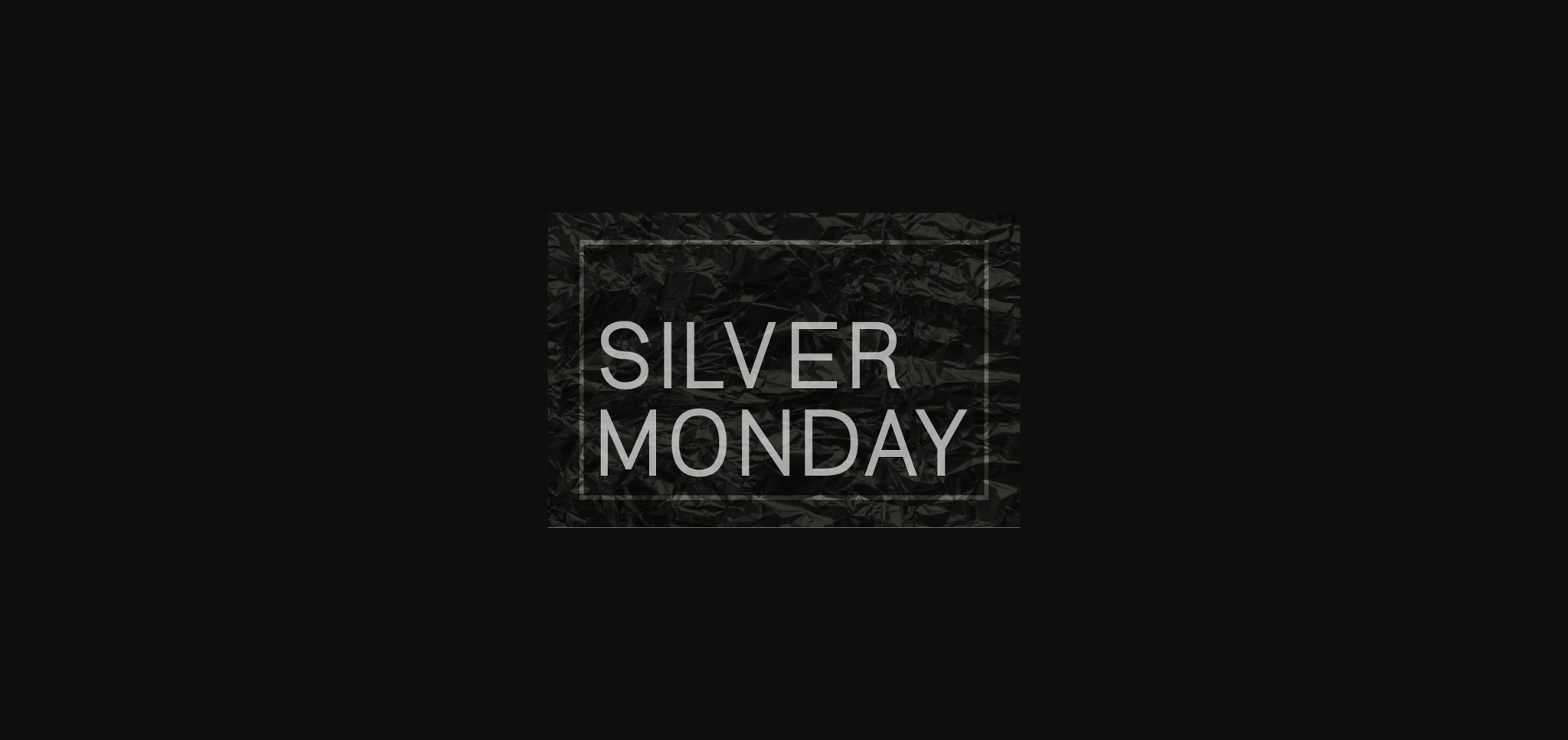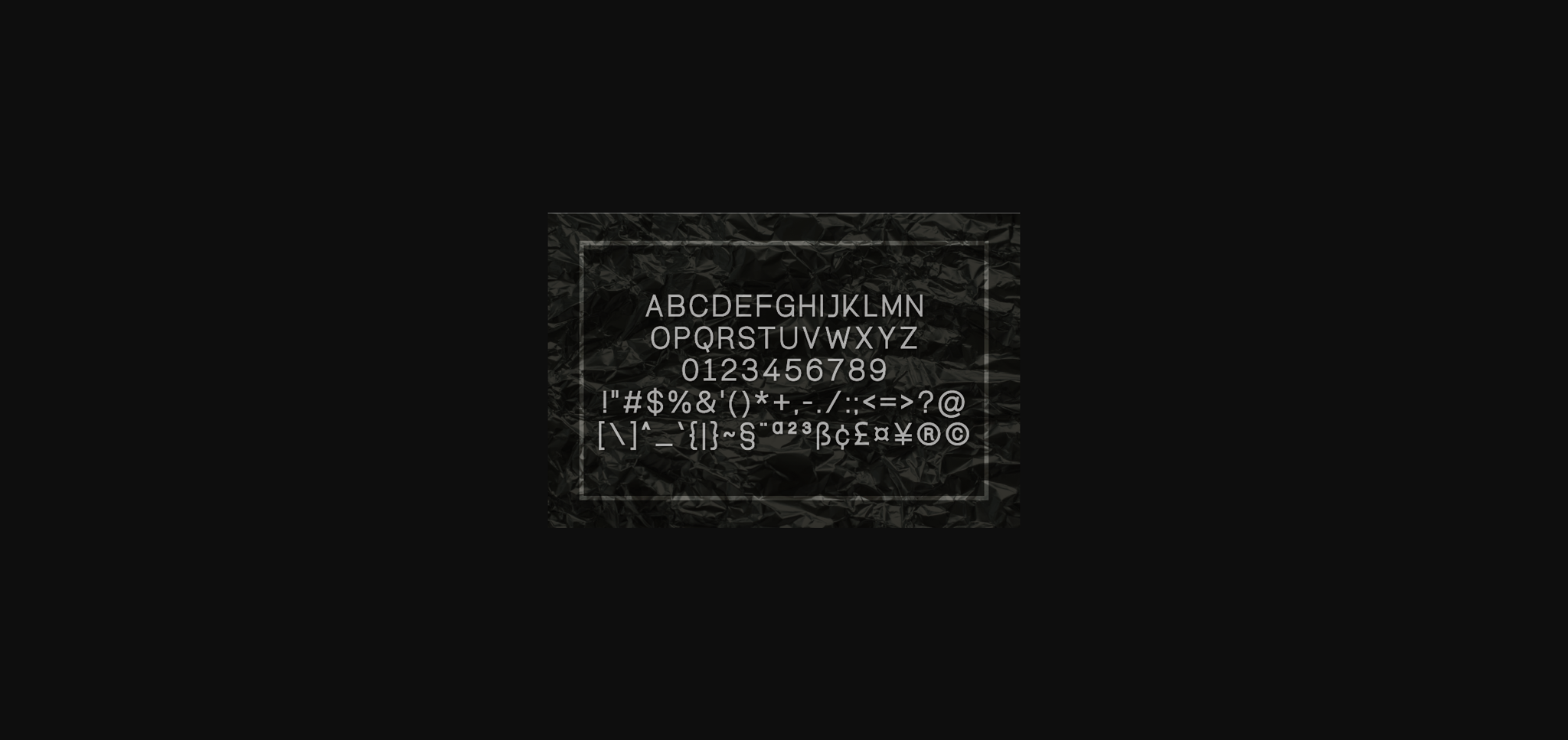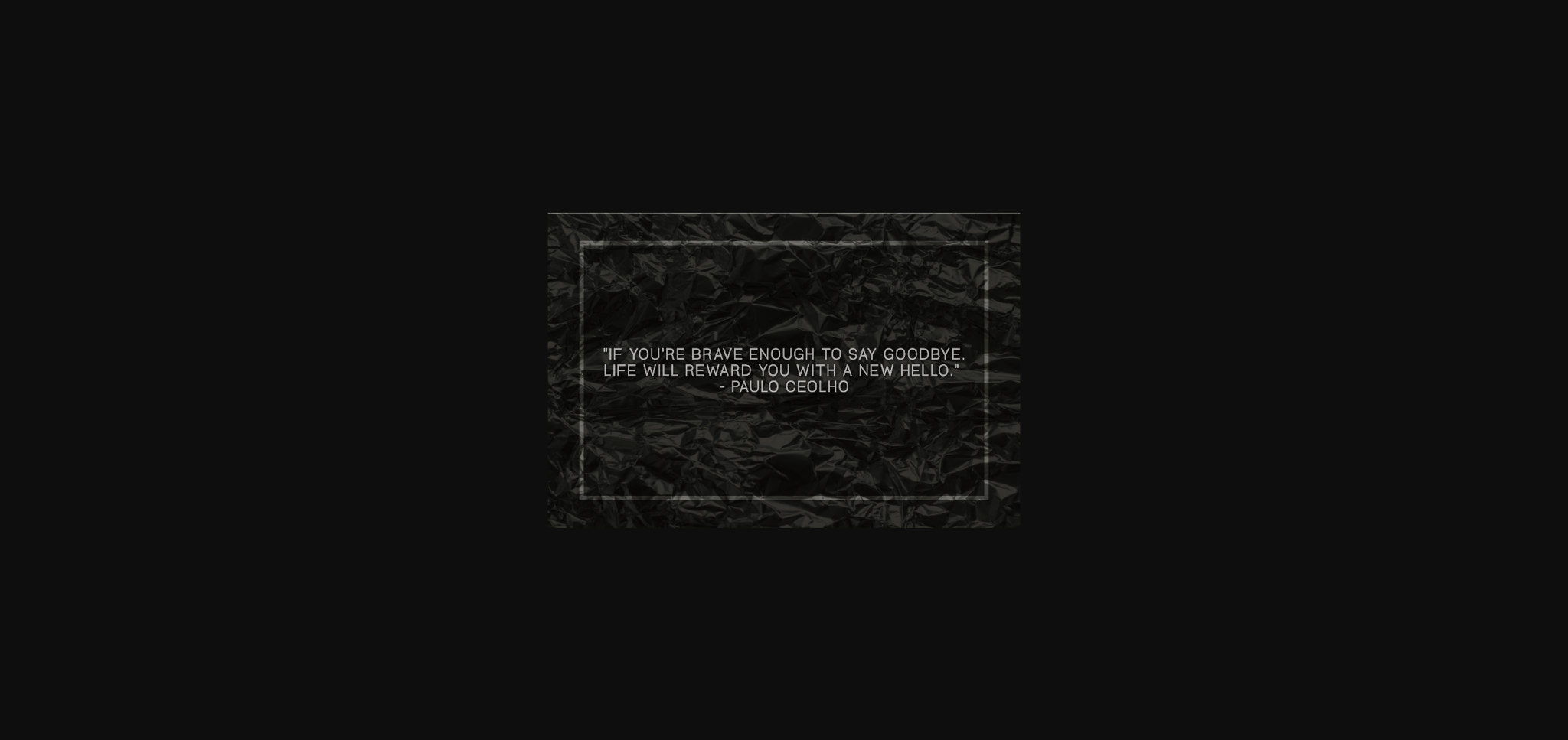
About Silver Monday Font
Silver Monday is a stunning sans serif font to complement every project you’re working on.
Use it to create beautiful headings, gorgeous invitations, stunning logos, and so much more!!